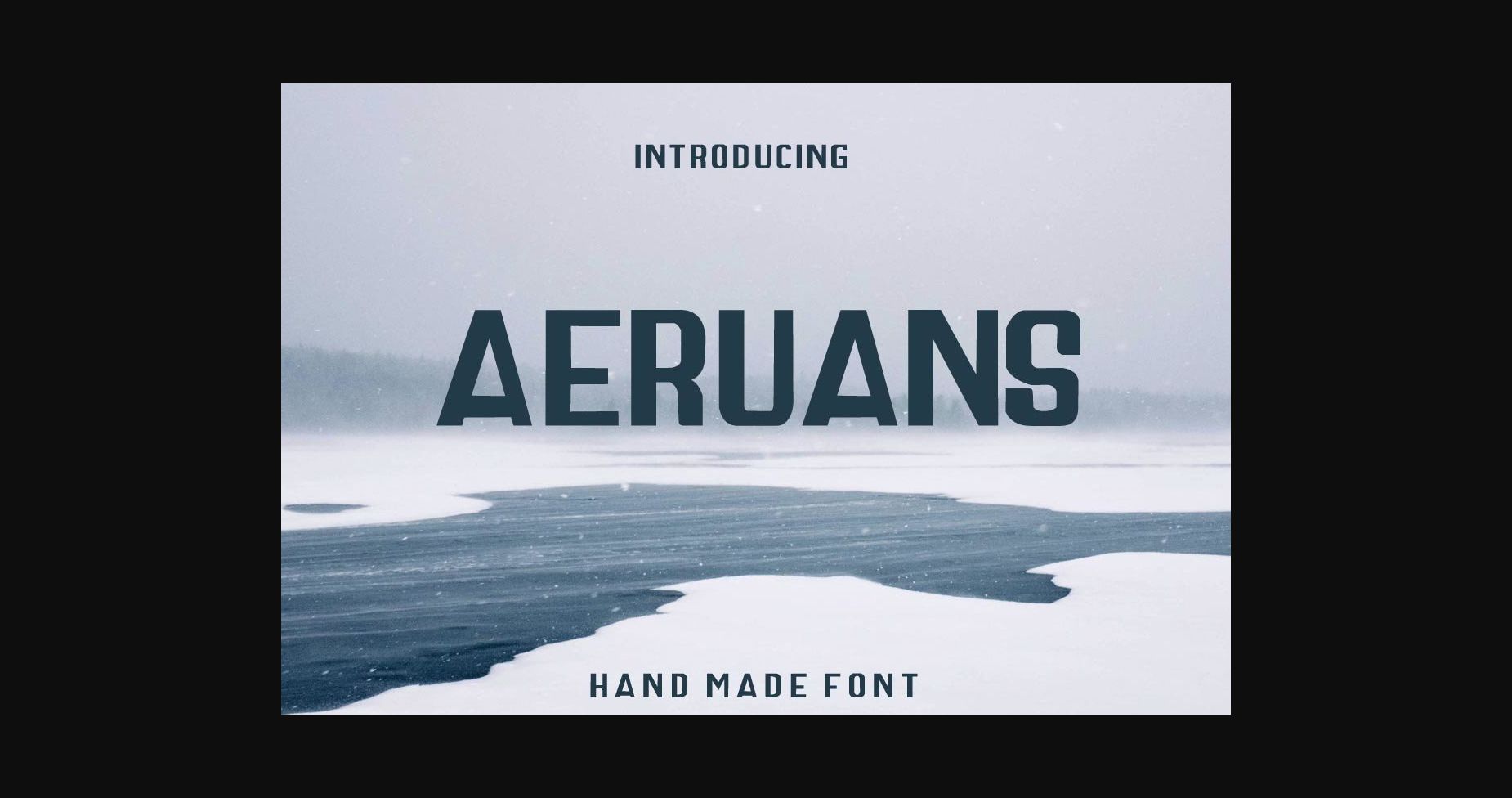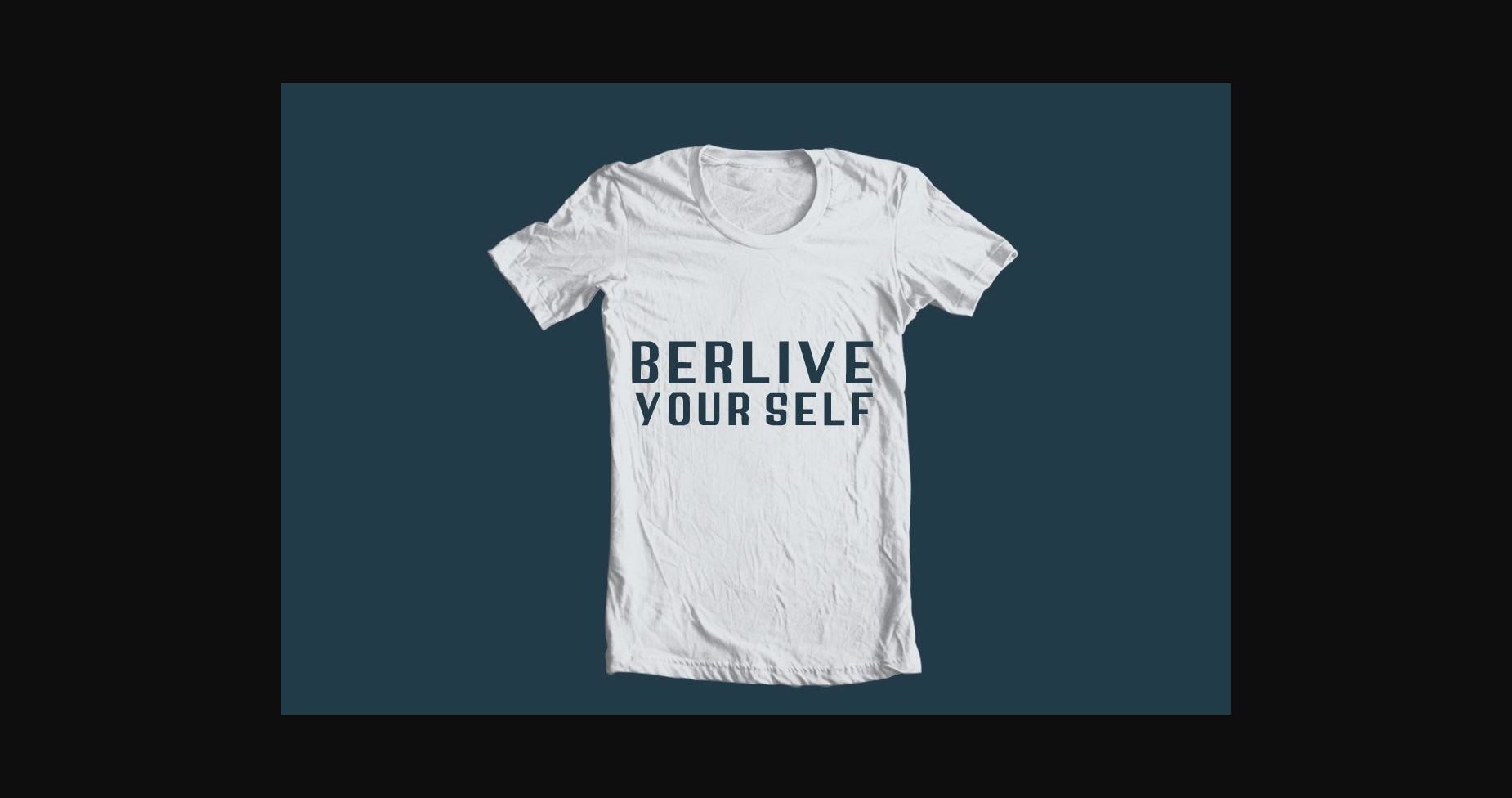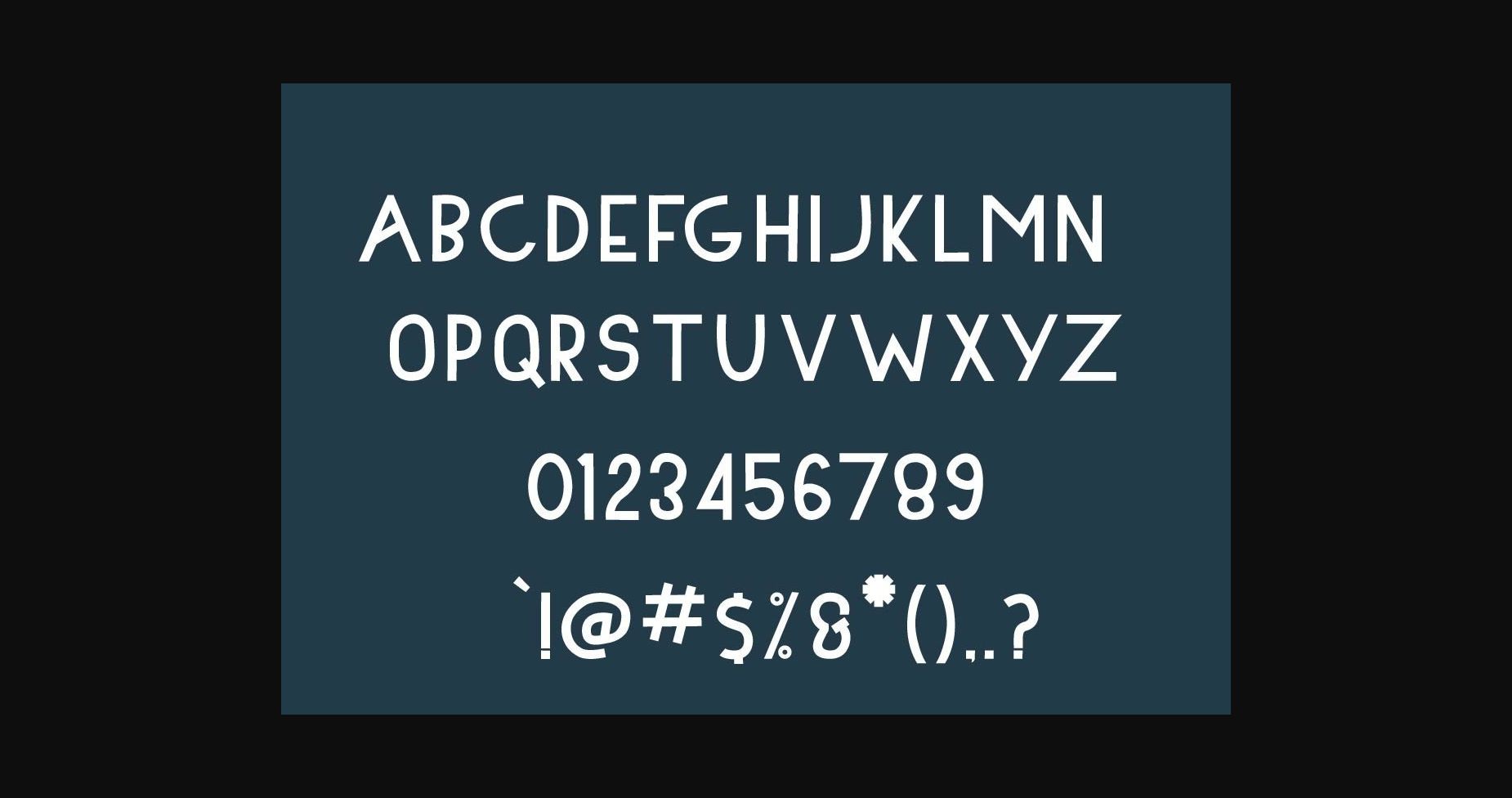
HomeSans Serif FontsAeruans Font Sans Serif Fonts Aeruans Font FacebookTwitterPinterestWhatsApp 1 of 5 ... Aeruans Font Poster 2... Aeruans Font Poster 3... Aeruans Font Poster 4... Aeruans Font Poster 5... About Aeruans Font The Aeruans is a striking sans serif with a vintage style. It’s perfect for logos, headers, and small amounts of text. DOWNLOAD NOW People also explored Nuerthon Black Font Built Tilting Shintaku Font Billaneiva Font Le Greg Font Hefton Ampuera Font Delightful Dog Font Pinsetter Mono Font 258 0 TagsAeruansAeruans Font Previous articleBale Home FontNext articleMathelo Font LEAVE A REPLY Cancel reply Comment: Please enter your comment! Name:* Please enter your name here Email:* You have entered an incorrect email address! Please enter your email address here Website: Save my name, email, and website in this browser for the next time I comment. Personal Use Free Hollow Personal Use Free Read more about this font Angista Script Personal Use Free Read more about this font Pattern Personal Use Free Read more about this font Tahu Font Personal Use Free Read more about this font BLOG Free vs Paid Fonts: Why Investing in Premium Fonts Is Worth It Free vs Paid Fonts: Why Premium Fonts Are Worth It in 2025 The debate of free vs paid fonts continues in the design world. While... Top 7 Google Fonts Alternatives for Faster and Privacy-Friendly Web Design (2025) Best Fonts for T-Shirt Design – Top 2025 Picks To increase your work productivity, choose the most readable fonts.